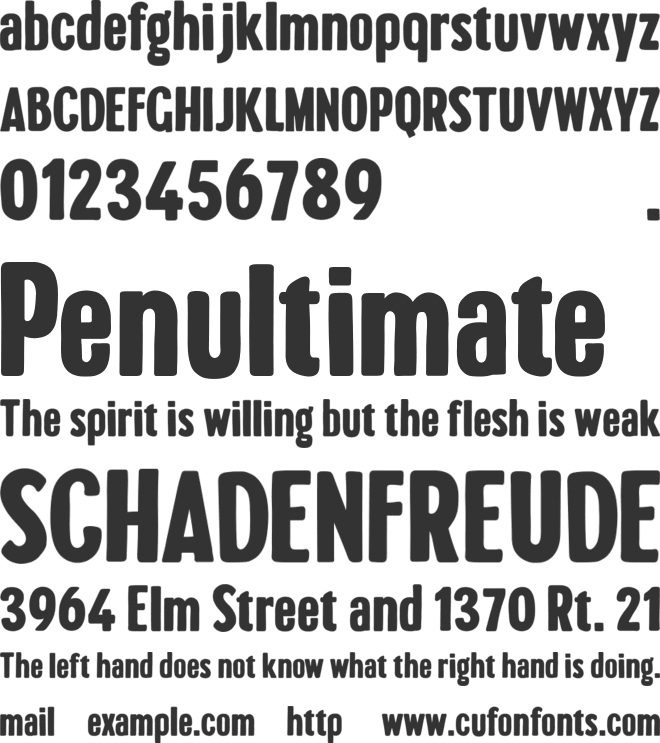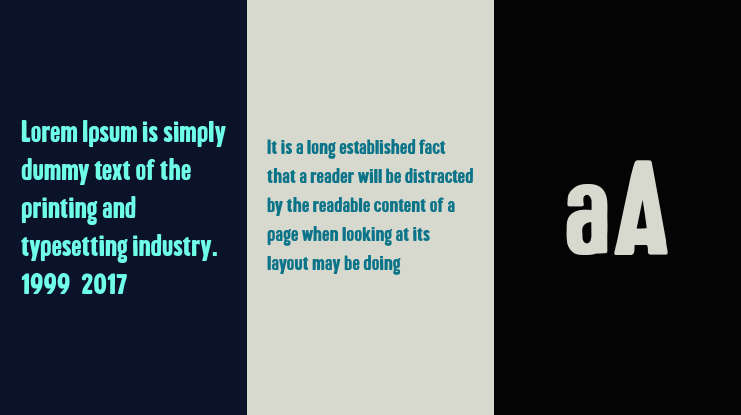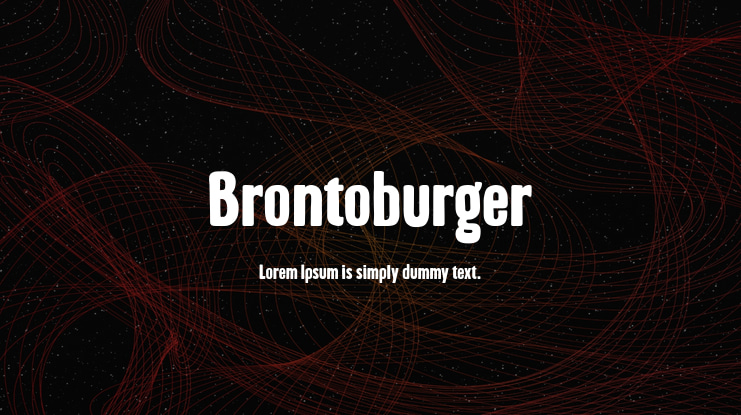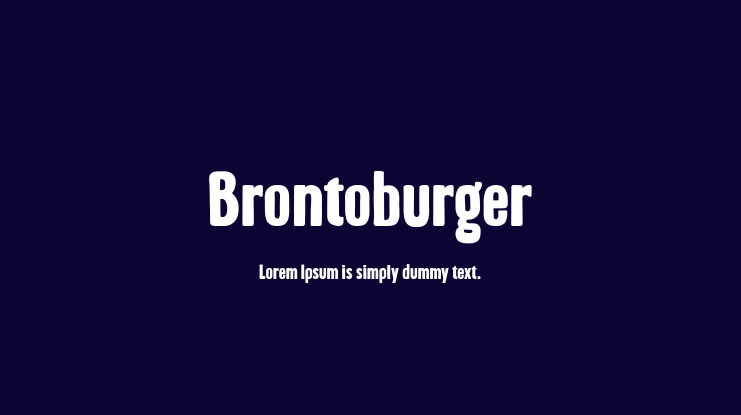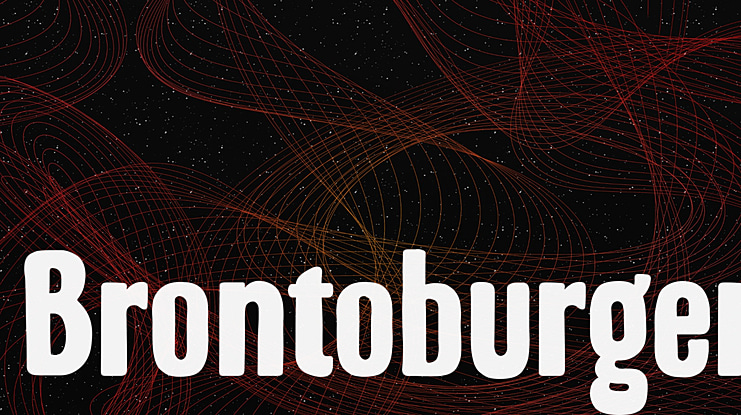
Brontoburger Font
by Dennis Ludlow
Take a big bite out of Brontoburger! This 3 member family is defined by its loose, laidback appearance but stops short of being too rough around the edges. Its softened corners produce a warm, friendly look suitable for many applications. Brontoburger is playful enough to be featured on toy packaging but suitable for business cards as well. Try the 3D Extrude version for a book cover or poster.